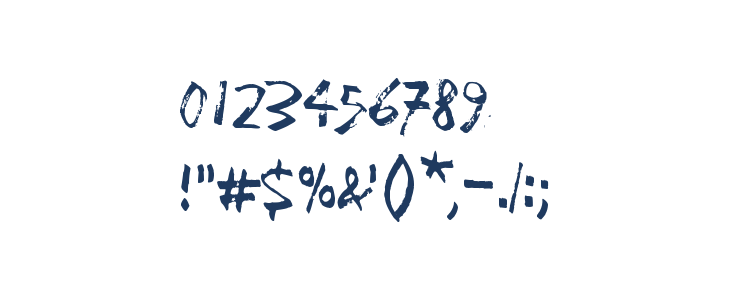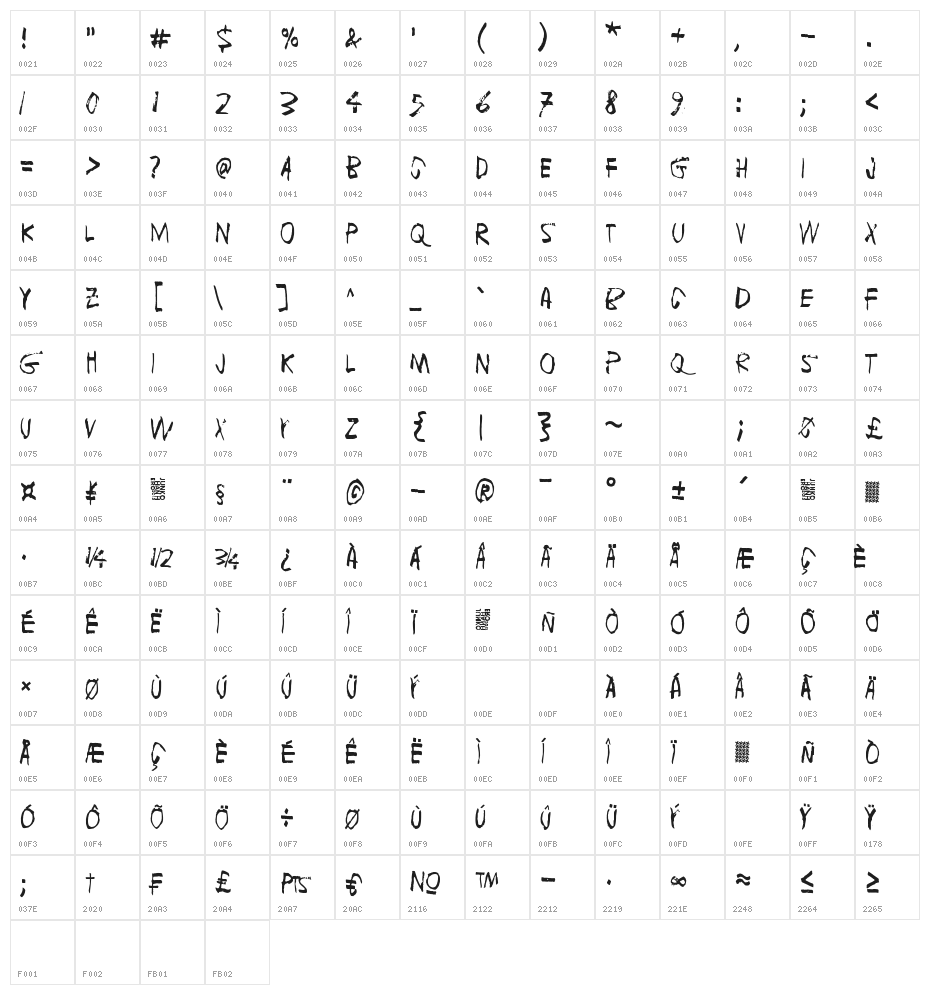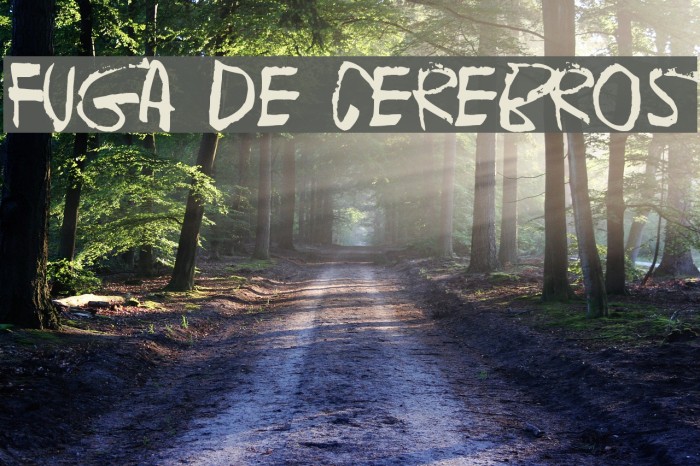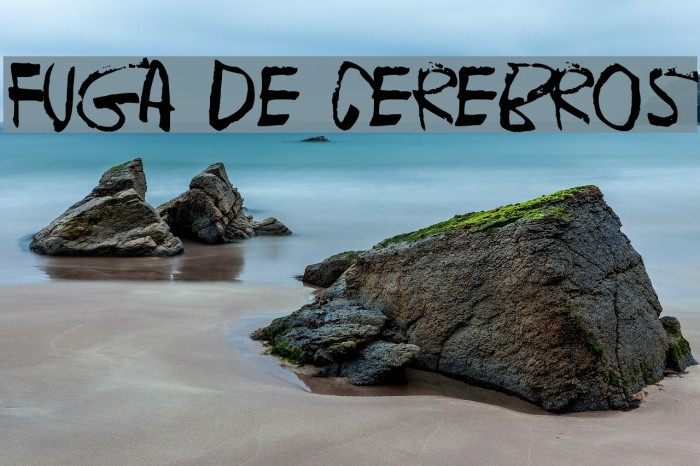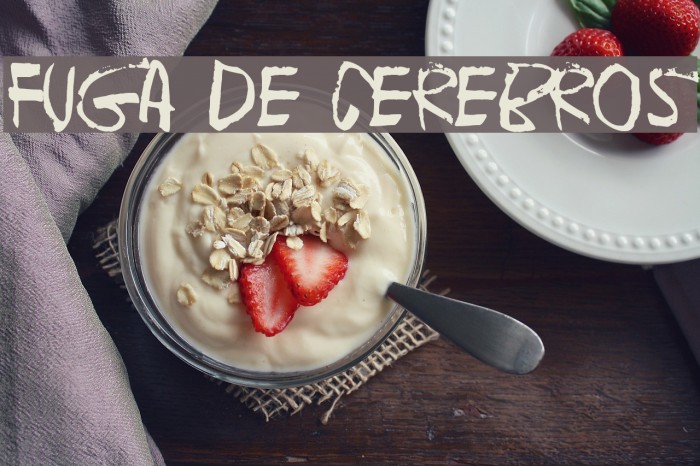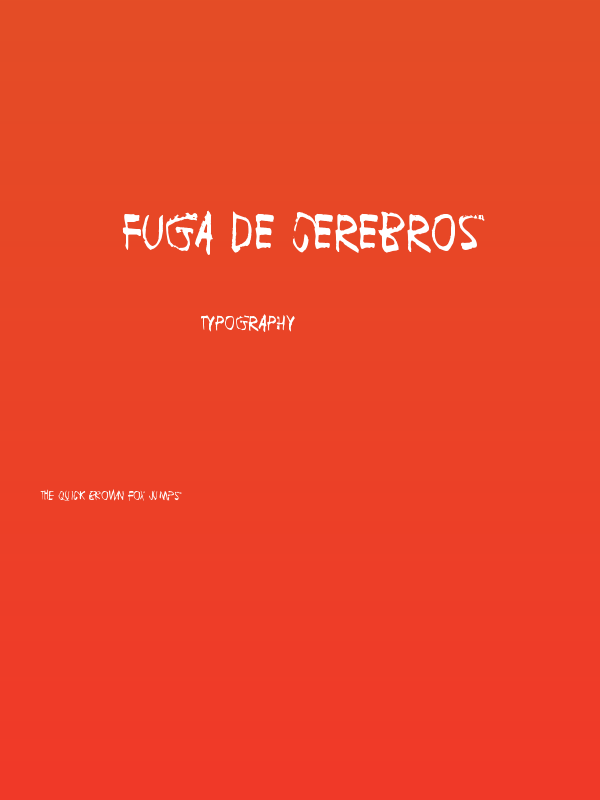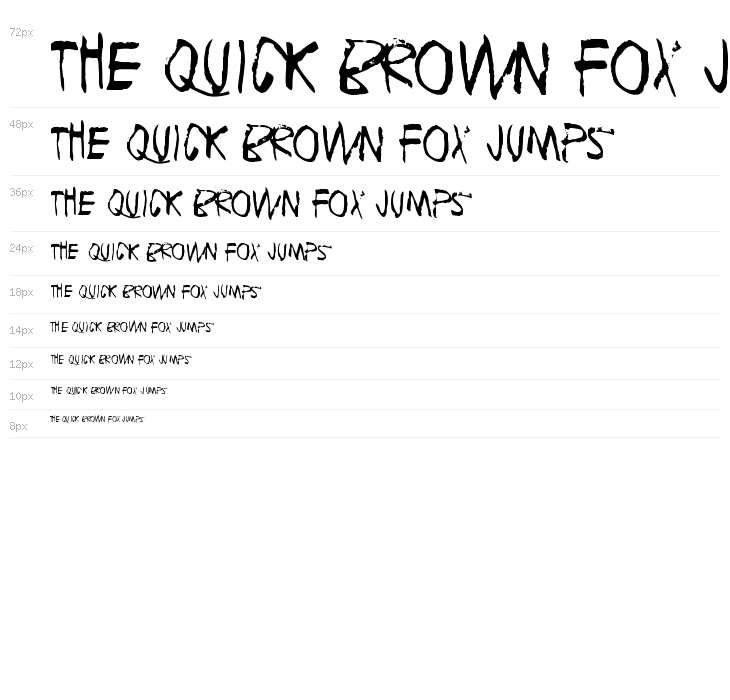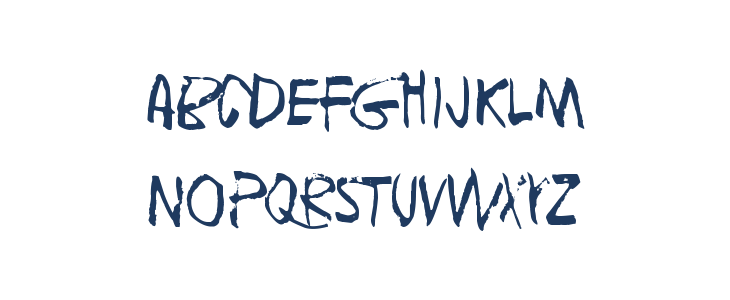
Fuga de cerebros Font
Fuga de cerebros Description
This font features a bold, expressive style with a hand-painted appearance. The characters are uneven and irregular, giving it a raw and artistic feel. The strokes are thick and vary in intensity, creating a dynamic and energetic look. The letters have a rough texture, as if they were created with a brush or marker, adding to the font's unique personality. This font is highly decorative and stands out with its distinctive, edgy design.
| Proposed Projects | Ideal for creative projects such as posters, album covers, graffiti art, and branding that requires a bold and artistic touch. |